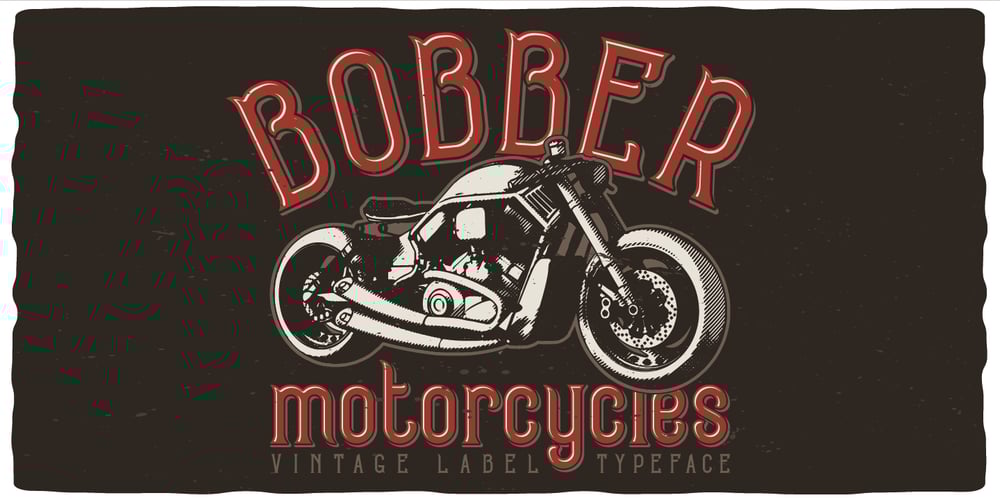
Bobber Motorcycles Font Family was designed by Oleg Voznyy and published by Vozzy. Bobber Motorcycles contains 5 styles and family package options. Introducing a vintage look label font named Bobber Motorcycles. It includes five styles – Base, Rough, Outline, Shadow and Light. This font will good viewed on any retro design like posters, t-shirts, labels, logos and more.